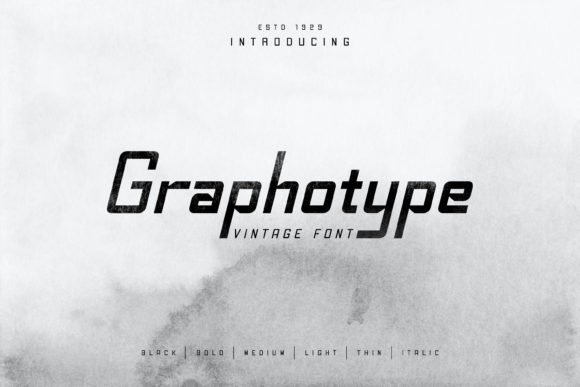
Graphotype Font
Step into the world of Graphotype, a font that embodies the very essence of modern typography. With its clean, geometric lines and a hint of retro charm, Graphotype is the perfect choice for designers seeking a font that commands attention and leaves a lasting impression. Immerse yourself in the unique blend of bold and playful, where each letter exudes character and personality.
Unleash your creativity and let Graphotype transform your designs into masterpieces. Its versatility knows no bounds, making it the ideal companion for logos, posters, headlines, branding, and any project demanding a bold statement. Whether you're a seasoned designer or just starting your journey into the world of typography, Graphotype will elevate your work to new heights.
Experience the allure of Graphotype's dual style, where sharp edges meet rounded corners, creating a visual symphony that captivates the eye. Its distinctive letterforms dance across the page, evoking a sense of nostalgia while maintaining a thoroughly modern aesthetic. Let Graphotype be your guide as you craft designs that resonate with your audience, leaving an indelible mark on their minds.
Don't settle for ordinary fonts; embrace the extraordinary with Graphotype. Let its bold presence amplify your message and make your designs shine. Download Graphotype today and unlock a world of creative possibilities, where innovation and style converge. Join the ranks of discerning designers who recognize the power of exceptional typography and elevate your projects to new levels of excellence.